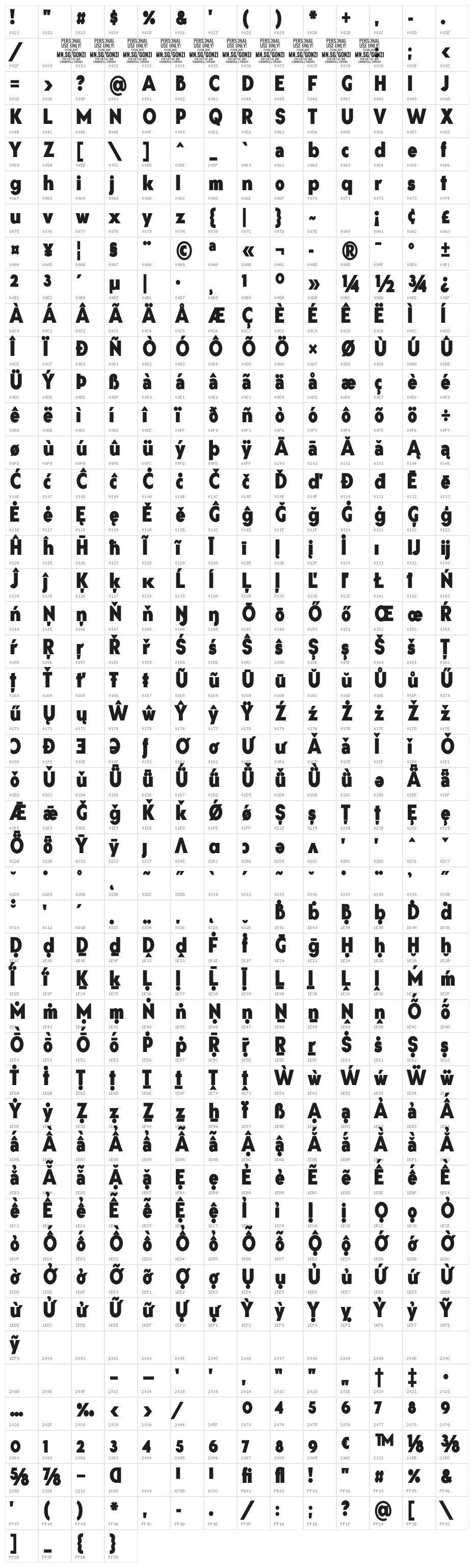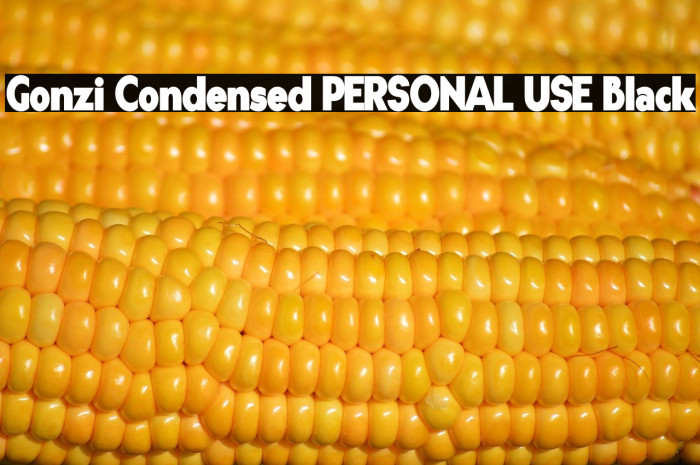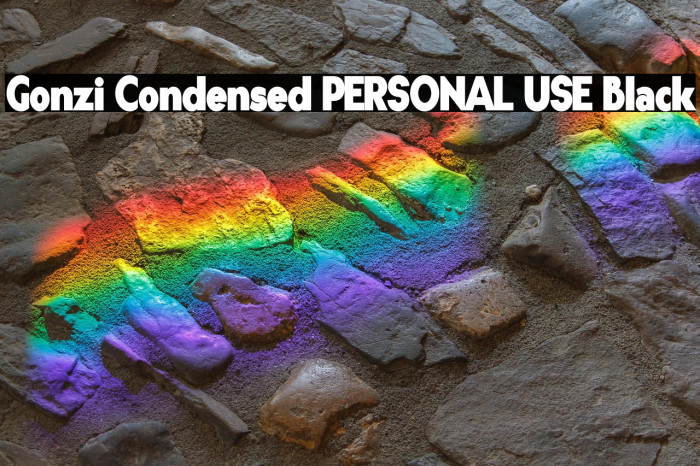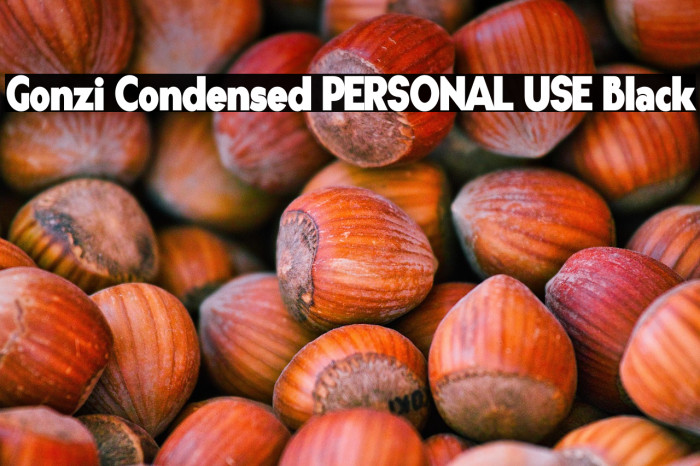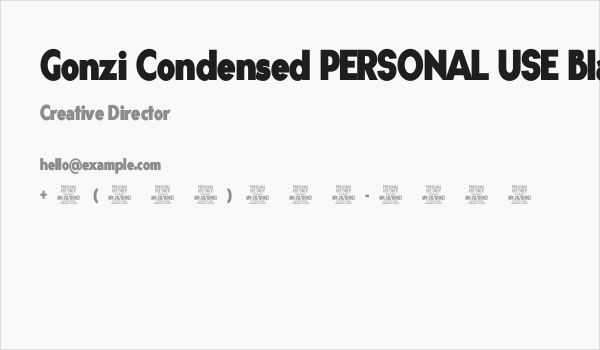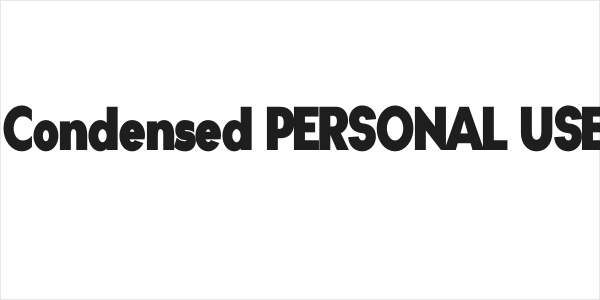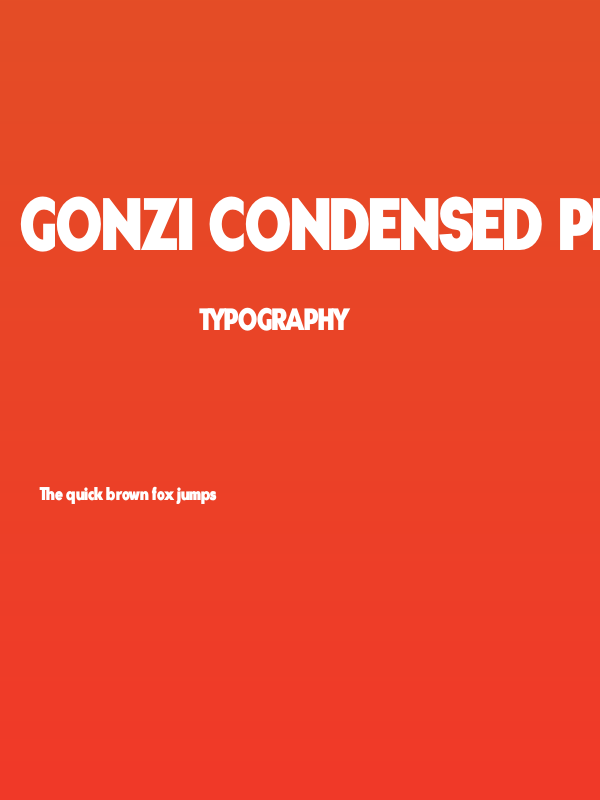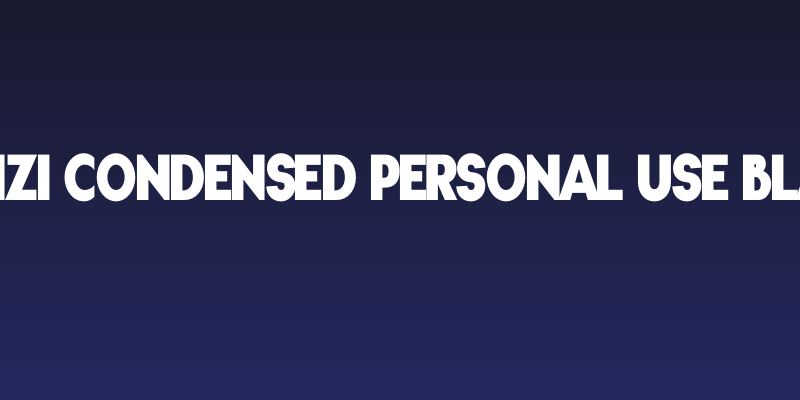
Gonzi Condensed PERSONAL USE Black Font
Gonzi Condensed PERSONAL USE Black Description
This font features a bold and condensed style, characterized by thick, uniform strokes that create a strong visual impact. The uppercase and lowercase letters maintain a consistent width, contributing to a cohesive and compact appearance. The design is clean and modern, with minimal contrast between thick and thin strokes, making it highly legible. The special characters and numbers follow the same bold and condensed style, ensuring uniformity across all glyphs. This font is ideal for making a statement, with its striking and assertive presence.